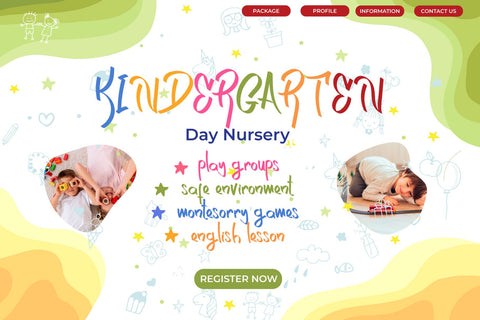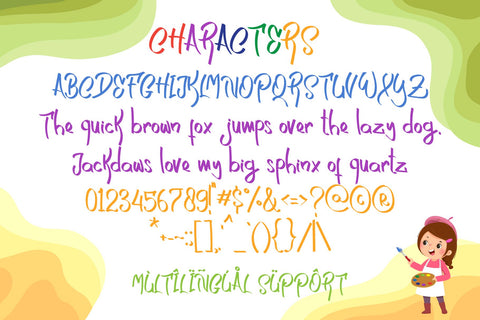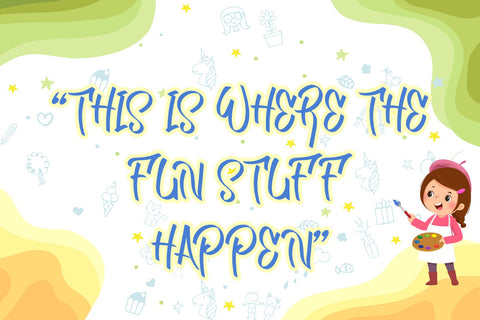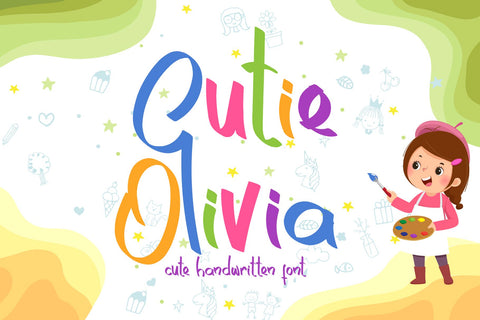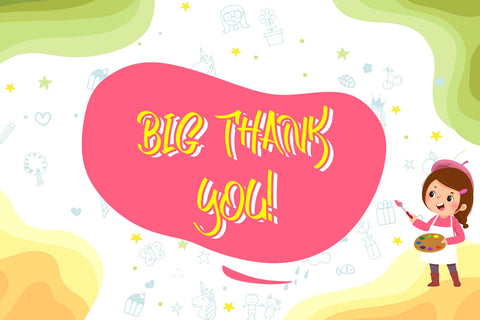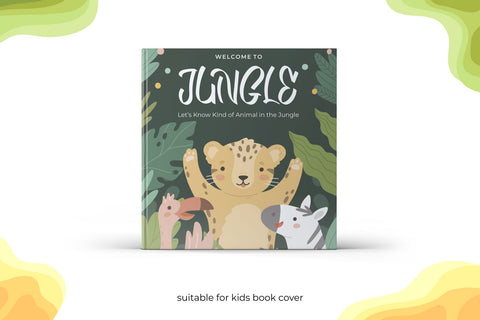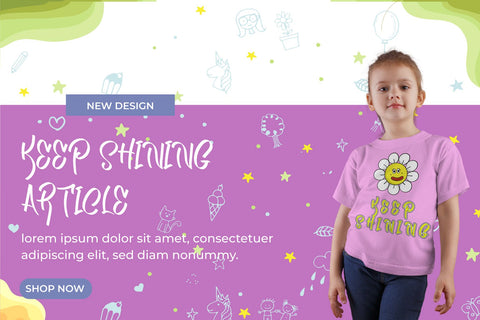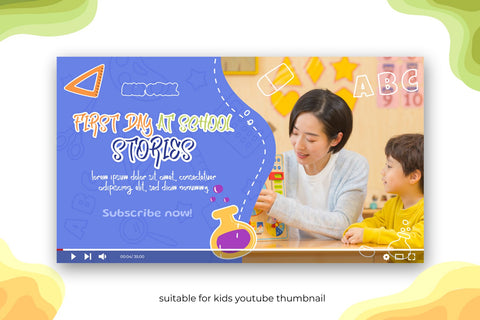
Cutie Olivia - Realistic Kids Handwritten
Cutie Olivia is a Cute and charm script font with a relaxed theme, featuring a lovely style. No matter the topic, but this font is awesome for every kids or child project, this font will be an incredibly asset to your fonts’ library, as it has the potential to elevate any creation.